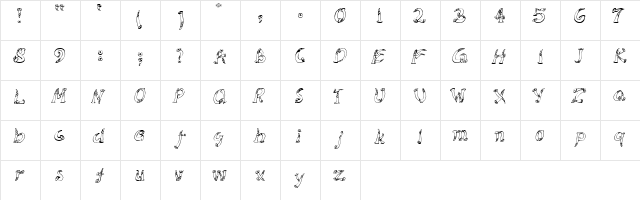
DEEP WITHIN Regular
Design Context for DEEP WITHIN Typeface
DEEP WITHIN is a composed and adaptable typeface that performs quietly and consistently across a wide range of design contexts. Its slender proportions lend an understated elegance to any composition.